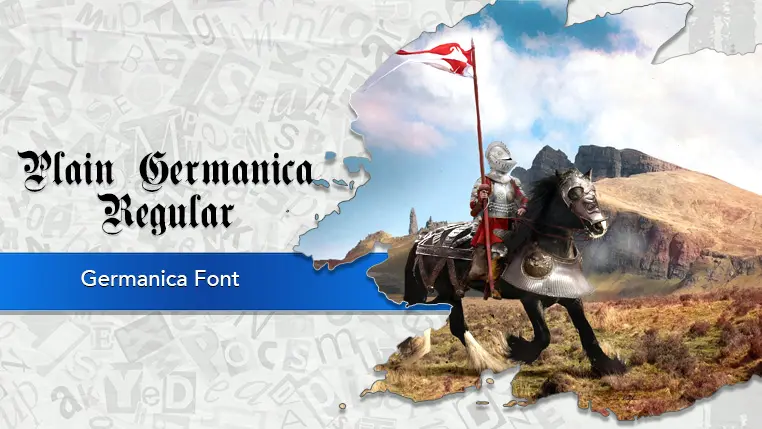
The Germanica font family may be ideal for you if you enjoy working on an artistic design project. The lively, expressive look of this typeface, which was created by Paul Lloyd, makes it ideal for Historical and Fantasy Themes. Brands that want to project a sense of heritage, strength, or a specific "old-world" craftsmanship can use Germanica for their logo. It's often used by craft breweries, metal bands, or companies that want to stand out with a bold, traditional identity. The font is best used for headlines, mastheads, and other short, decorative text elements. The "Gothic" or Fraktur style is a popular choice for tattoos, and Germanica's distinct letterforms can create a powerful and artistic design. The font's formal and historical feel can make it a good choice for titles on certificates, diplomas, or invitations for specific themed events. and other light-hearted visual projects.
Regular, Regular are the four primary font styles of the Germanica font family. You may build dynamic, visually appealing text layouts with the distinct flair that each style offers. With crisp, readable lines and a relaxed tone.